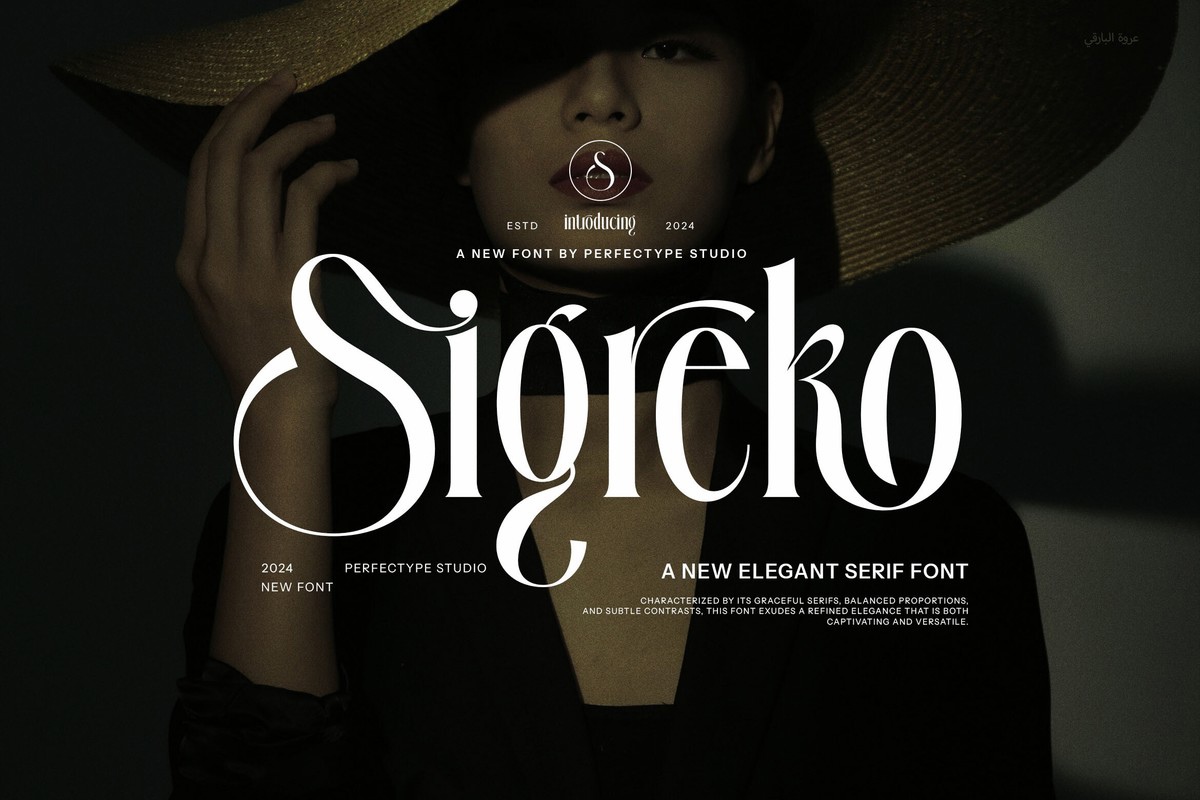
Sigreko Font
Sigreko Font is perfect for modern tech startups, innovative software development companies, digital transformation consultancies, cutting-edge AI research firms, progressive technology platforms, futuristic app interfaces, contemporary design agencies, advanced engineering presentations, next-generation product launches, and forward-thinking technology brand identities. This innovative typeface brings technological sophistication and digital innovation to any tech-focused design project.
Sigreko Font is exciting because it embodies the precision and forward-thinking innovation that drives modern technology advancement, featuring sleek letterforms that seem to pulse with digital energy and capture the systematic elegance of well-engineered solutions. Its technological character instantly conveys innovation leadership, digital expertise, and the sophisticated problem-solving approach that defines successful technology companies and cutting-edge digital platforms.
Sigreko Font family includes Light, Regular, Medium, Bold, and Black weights with tech-inspired alternates, digital flourishes, innovative ornamental elements, and technology symbols that enhance the modern aesthetic, providing tech designers with sophisticated tools for creating typography that represents the forefront of digital innovation and technological advancement.
Technology brand designers appreciate Sigreko Font for its exceptional ability to convey digital innovation and technological sophistication through precisely crafted letterforms. The font's modern character and tech details create immediate associations with software development, digital platforms, and the innovative thinking that drives technological progress and creates solutions that improve human productivity and digital experiences.
The design philosophy behind Sigreko Font celebrates the transformative power of technology and the innovative engineering that creates digital solutions to complex problems, making it particularly effective for technology companies, software developers, and digital innovation organizations that advance human capability through technological excellence. Development teams working on cutting-edge projects find this font essential for communicating innovation.
Whether used for technology startup branding, software product launches, or digital innovation campaigns, Sigreko Font delivers the perfect synthesis of technological sophistication and innovation leadership. Its digital appeal and tech authenticity make it an indispensable choice for organizations that develop innovative technology, create digital solutions, and advance human capability through the systematic application of engineering excellence and technological innovation.